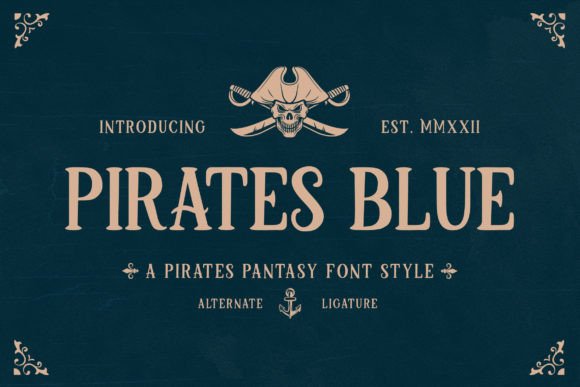
Are you looking for the perfect font to add some adventure and fantasy to your next project? Look no further than Pirates Blue Font, created by TypeFactory! As a display font, Pirates Blue is designed to make a statement and capture the essence of pirate life.
With its bold, swashbuckling style, Pirates Blue Font is the perfect choice for any design that needs to evoke a sense of adventure. Whether you're creating a movie or game poster, designing a pirate-themed logo, or crafting Latin quotes, Pirates Blue is the best font for the job. Its unique style and attention to detail make it stand out from the crowd.
But Pirates Blue isn't just a pretty font. It's also incredibly versatile, allowing you to create a wide range of designs with just one typeface. From bold headlines to subtle text accents, this font has everything you need to make your project truly shine.